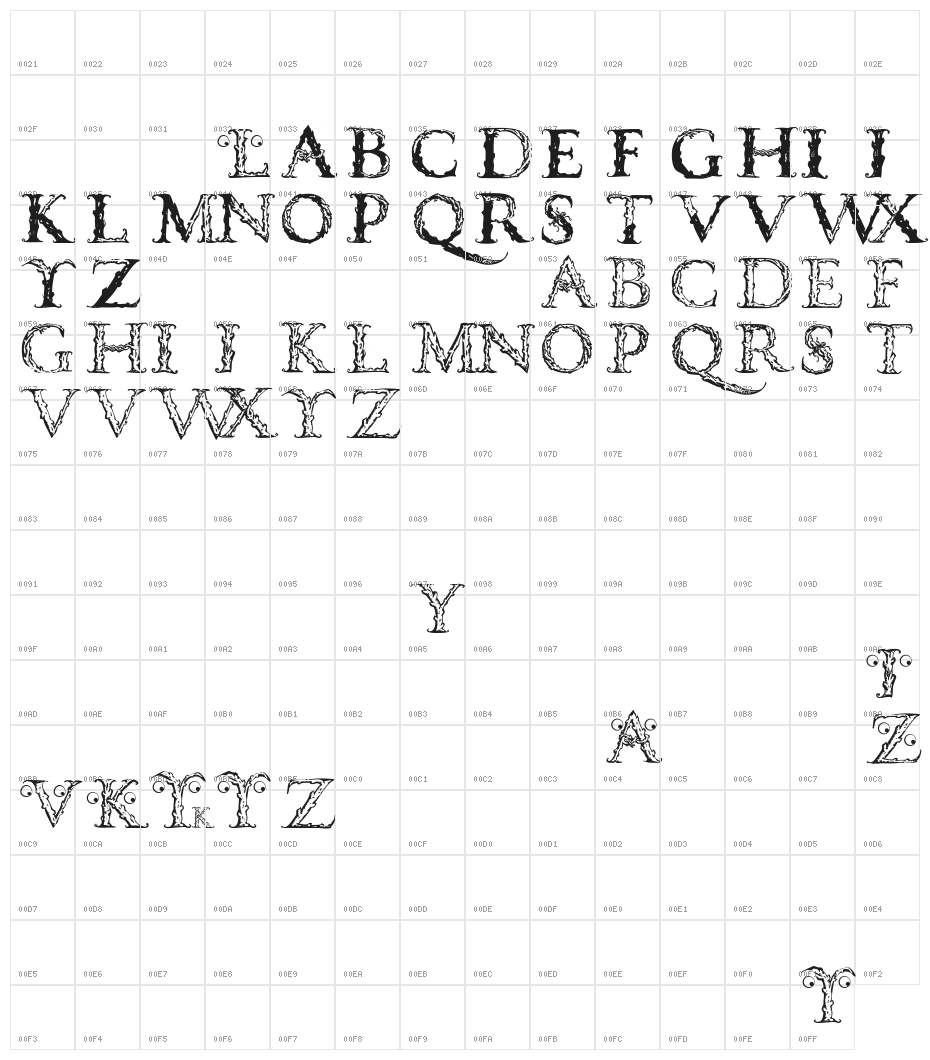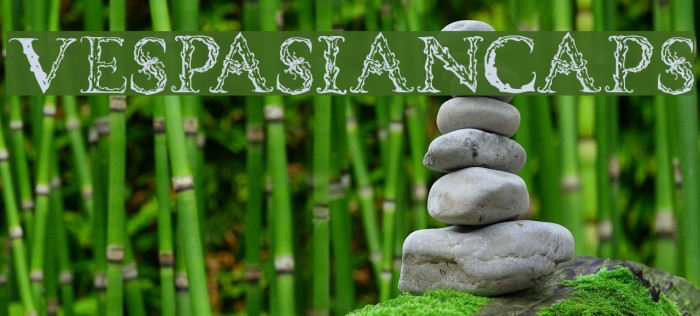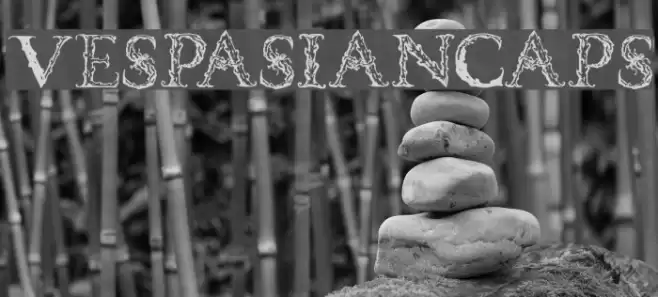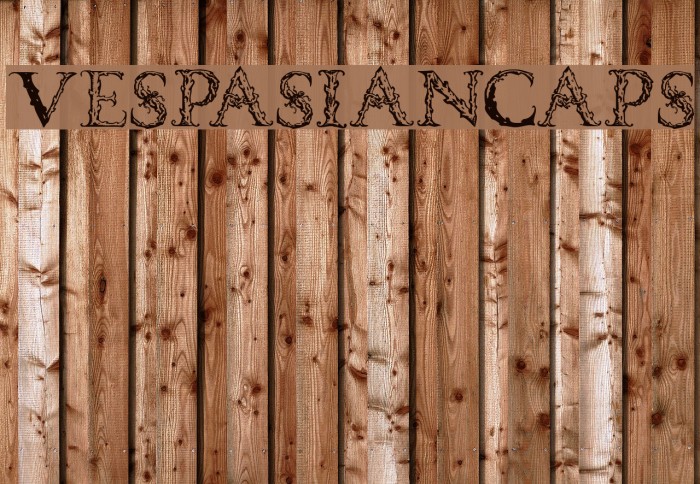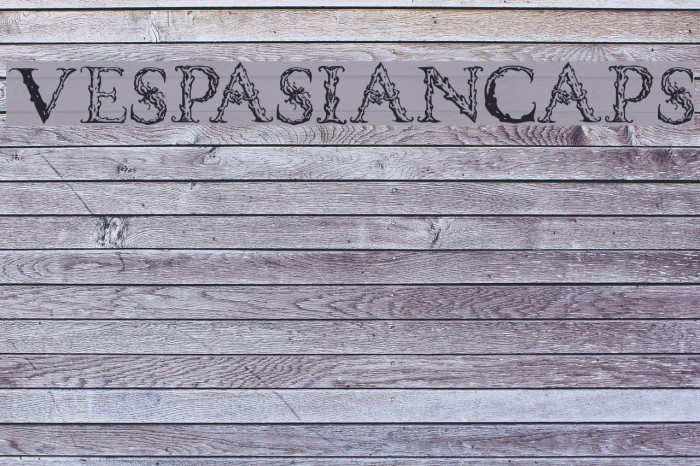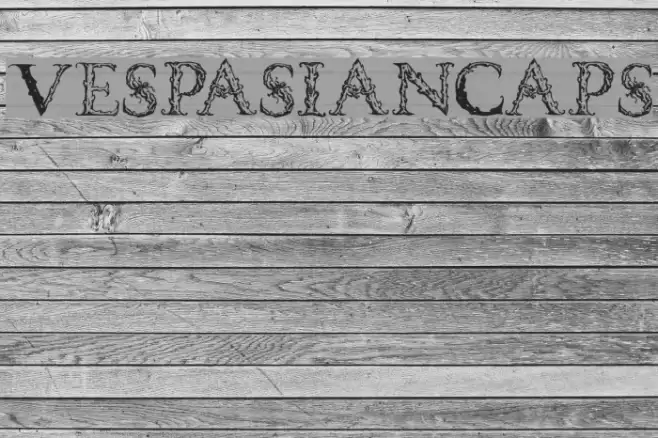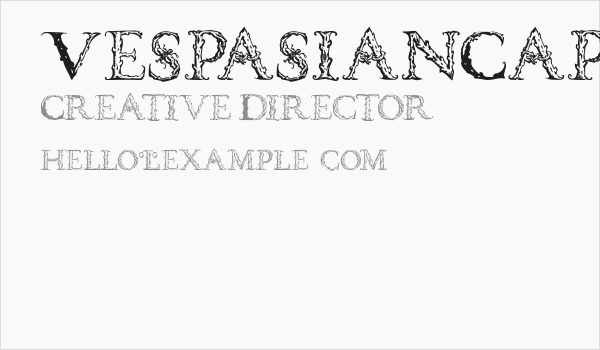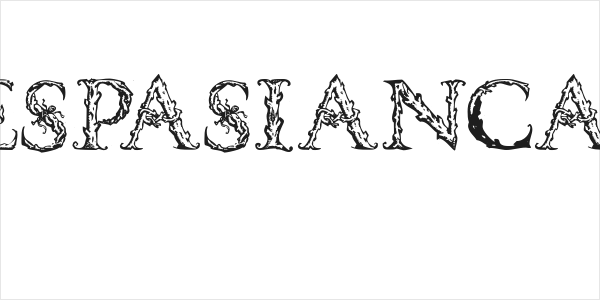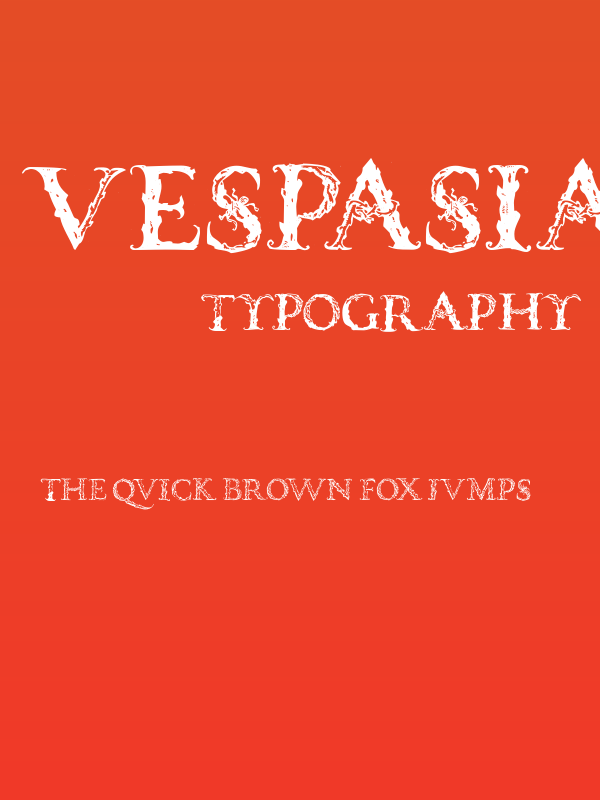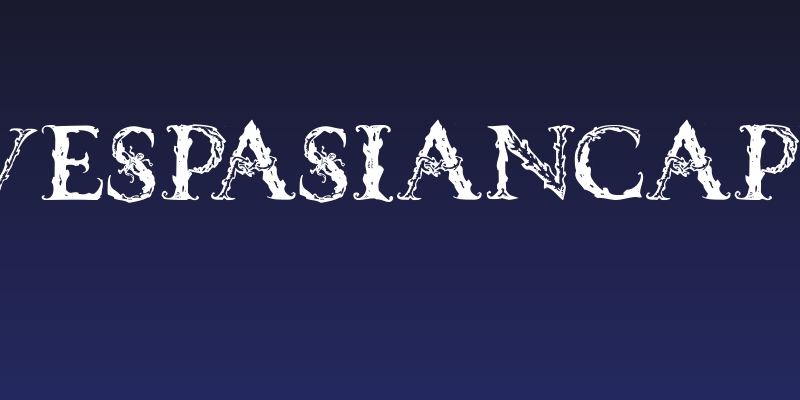
VespasianCaps Font
VespasianCaps Description
This font features an ornate and decorative style, reminiscent of ancient Roman inscriptions. The characters are embellished with intricate details, giving them a textured and historical appearance. The uppercase letters are bold and commanding, with a sense of grandeur and elegance. The overall design is highly stylized, making it suitable for projects that require a touch of antiquity and sophistication. The font's unique characteristics make it stand out, with each letter having its own distinct flair, yet maintaining a cohesive look across the alphabet.
| Proposed Projects | Ideal for historical-themed designs, book covers, posters, and branding that require a classical and elegant touch. |